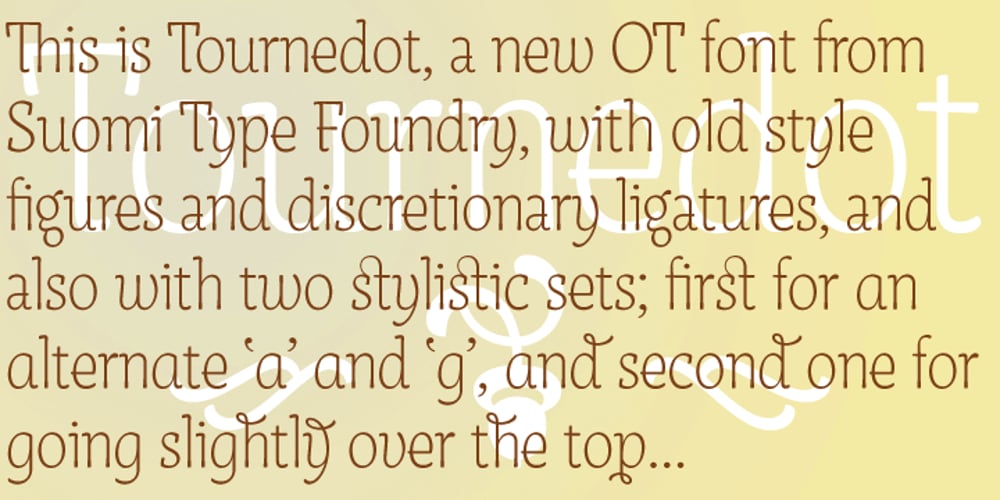
Tournedot Font Family was designed by Tomi Haaparanta and published by Suomi. Tournedot contains 1 styles and family package options. Tournedot is a semi-serif headline font with two stylistic sets to give more possibilities for different feel.